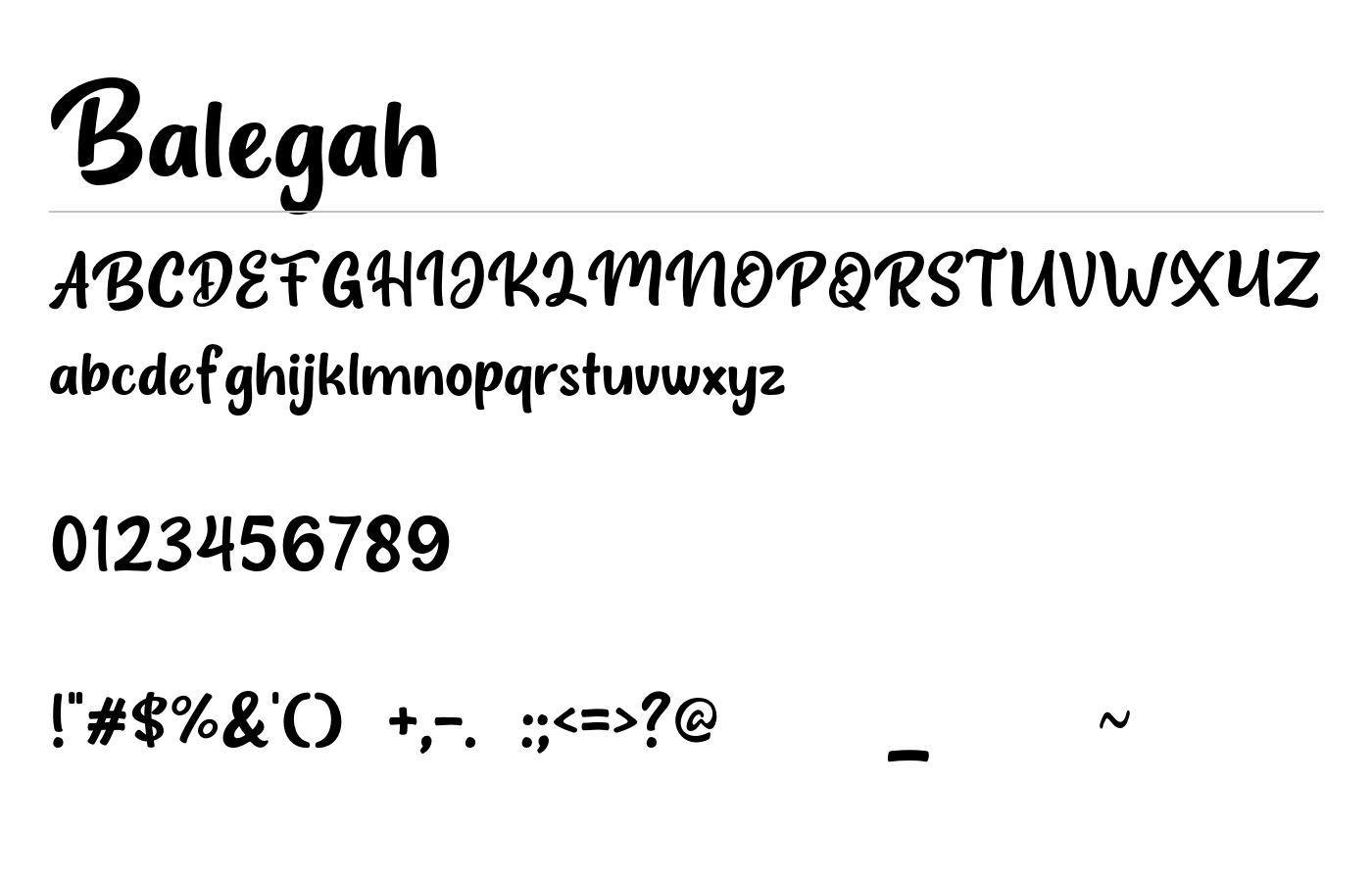
Balegah is a playful, casual script font with a warm and friendly vibe, featuring smooth, moderately bold strokes and a clean, rounded appearance. Its balanced letterforms and approachable style make it perfect for informal branding, social media graphics, and creative projects seeking a personal, handwritten touch. This font works well in headlines and display uses where a lively, inviting character is desired.
Balegah Font
About Balegah Font